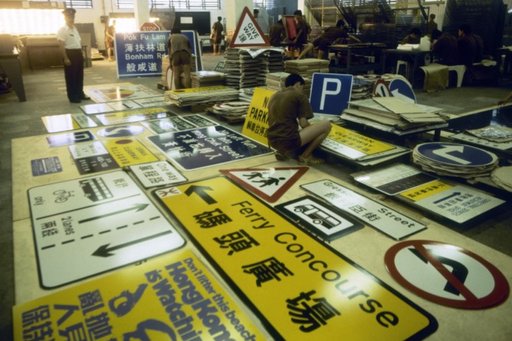
Prison Gothic Typeface of Hong Kong Road Signs
According to the Road Research Society, starting in the 1970s until May of 1997, road signs in Hong Kong were handmade by prisoners. Inmates would carve the Chinese characters by hand, and the resulting text style has now become known as Prison Gothic. The Road Research Society is a small volu…